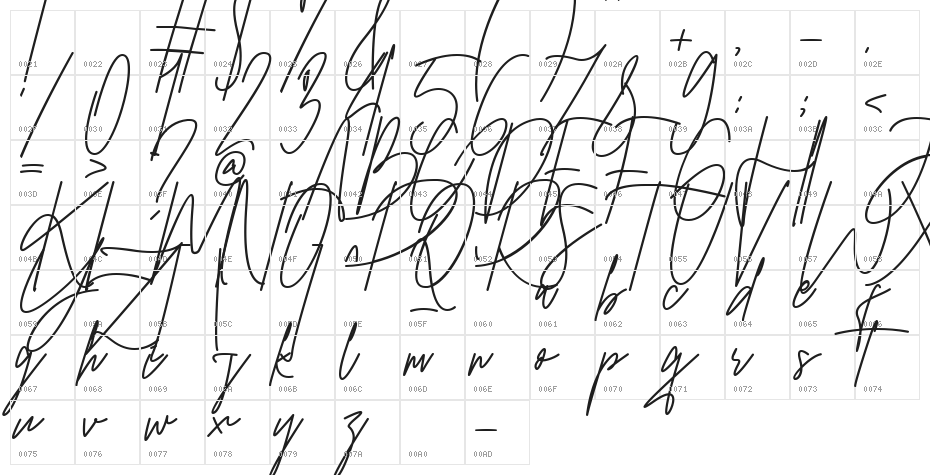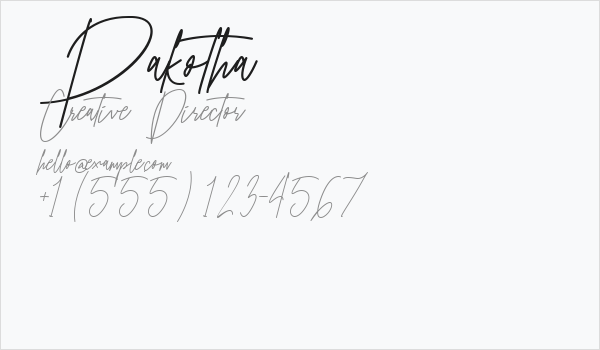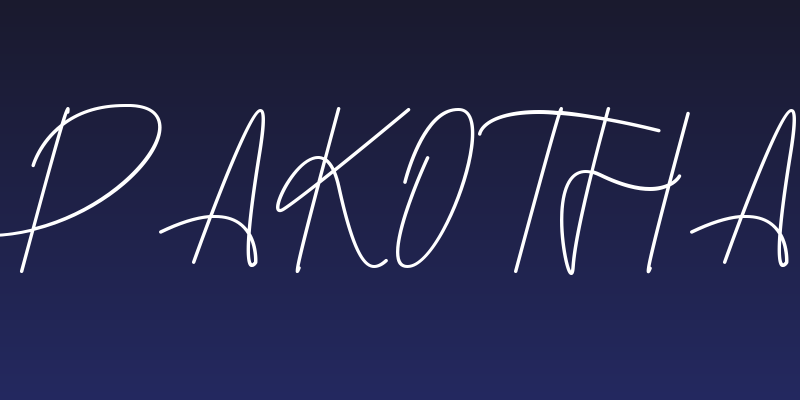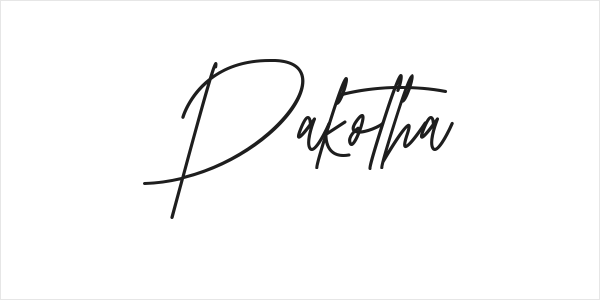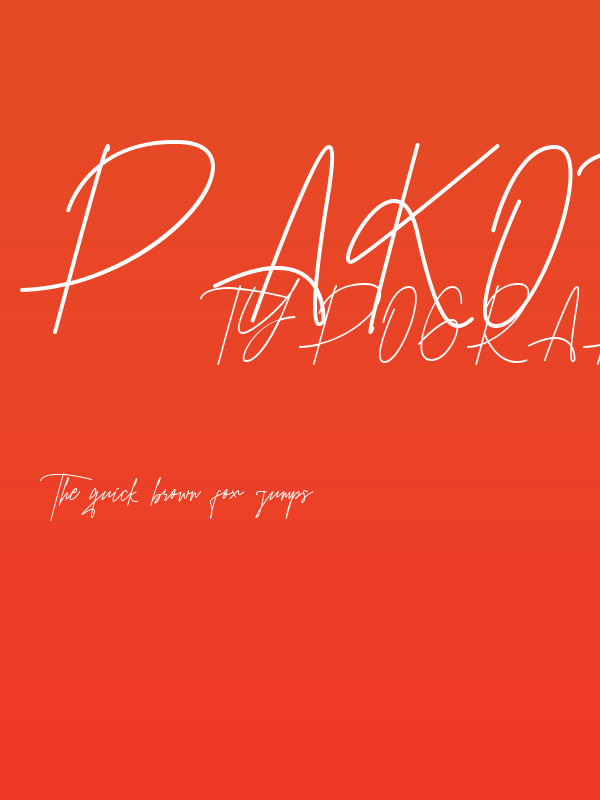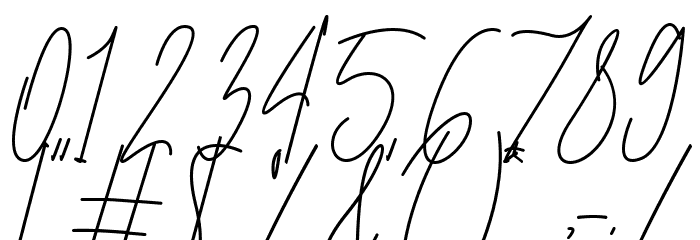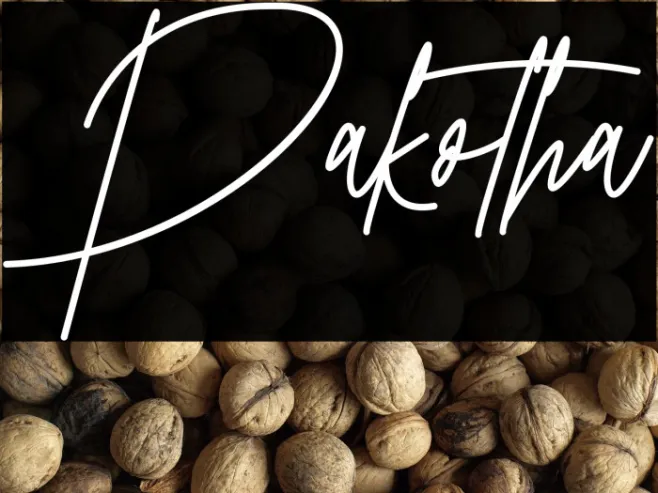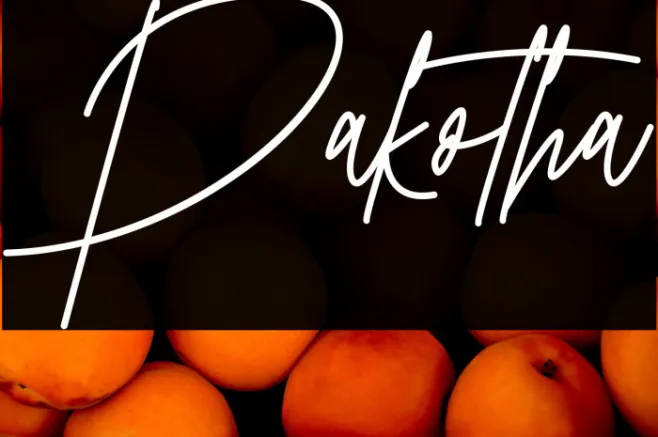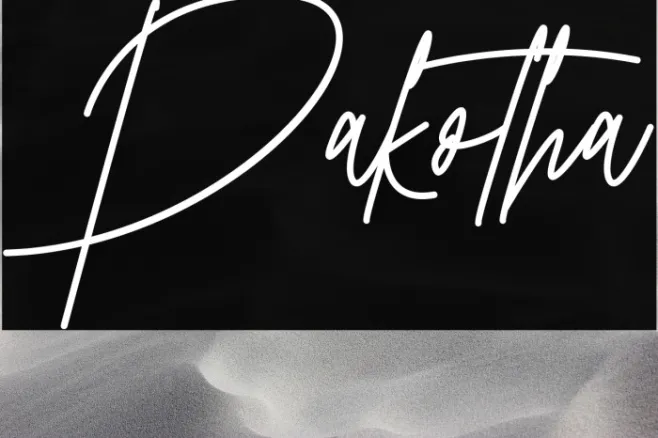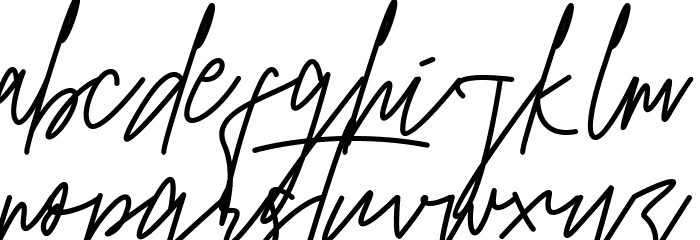
Pakotha Font
Pakotha Description
This font features a dynamic and expressive handwritten style, characterized by its fluid and continuous strokes. The uppercase letters are tall and slender, with a slight slant that adds a sense of motion and elegance. The lowercase letters maintain a consistent flow, with some characters extending below the baseline, enhancing the handwritten feel. The numbers are uniquely styled, matching the overall aesthetic with their elongated forms and slight curves. Special characters are integrated seamlessly, maintaining the font's cohesive look. This font's lively and personal touch makes it suitable for creative and informal applications.
| Proposed Projects | Ideal for personal branding, creative invitations, artistic posters, and expressive social media graphics. |